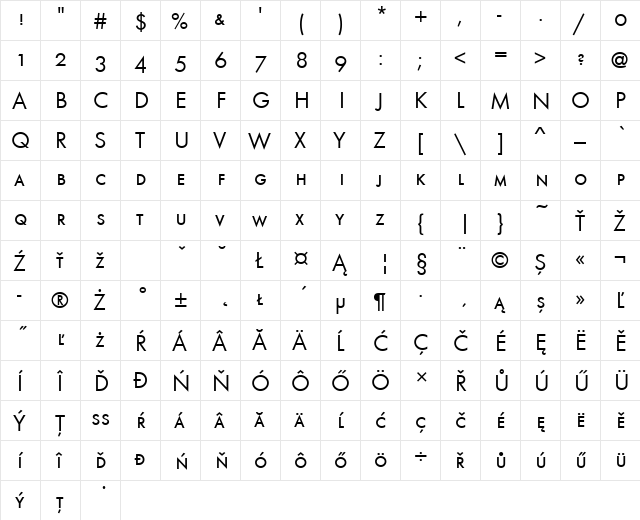
FuturaSCTEEBoo Regular
Design Context for FuturaSCTEEBoo Typeface
FuturaSCTEEBoo has a distinctly futuristic character, with geometric precision and clean angles that feel at home in technology, gaming, and sci-fi contexts.
Pro Tip: Use FuturaSCTEEBoo in combination with a neutral sans for body text. Let it define the brand voice in headlines while keeping reading comfortable elsewhere.